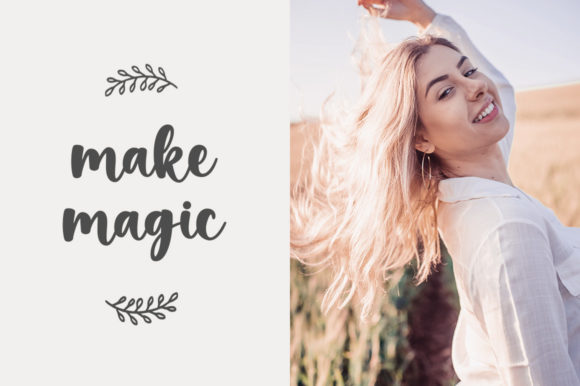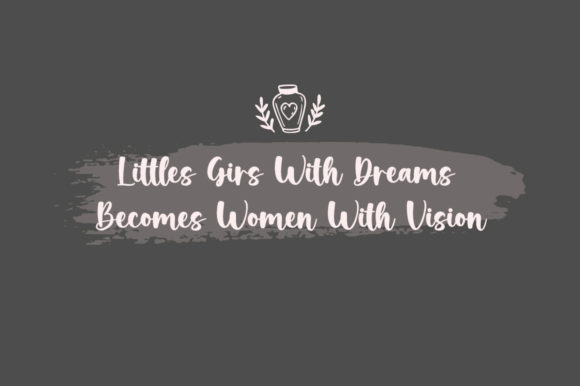
Hooray Font
db-ku.com - Script & Handwritten -- Hooray is a lovely script font featuring charming, playful characters that seem to dance along the baseline. Add it to your most creative ideas and notice how it makes them come alive!